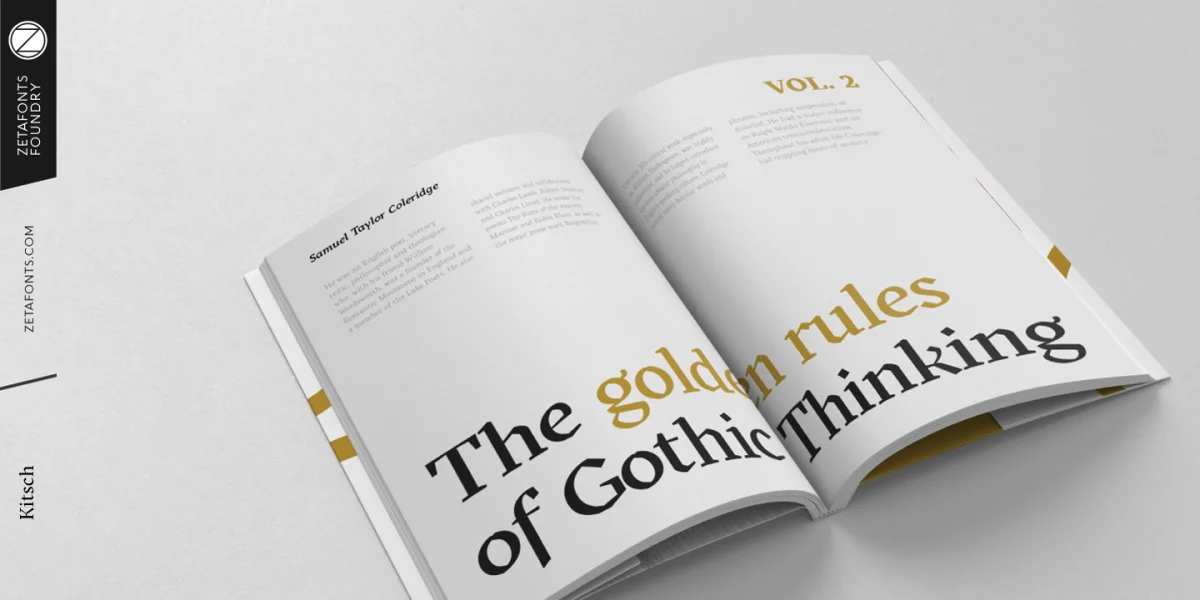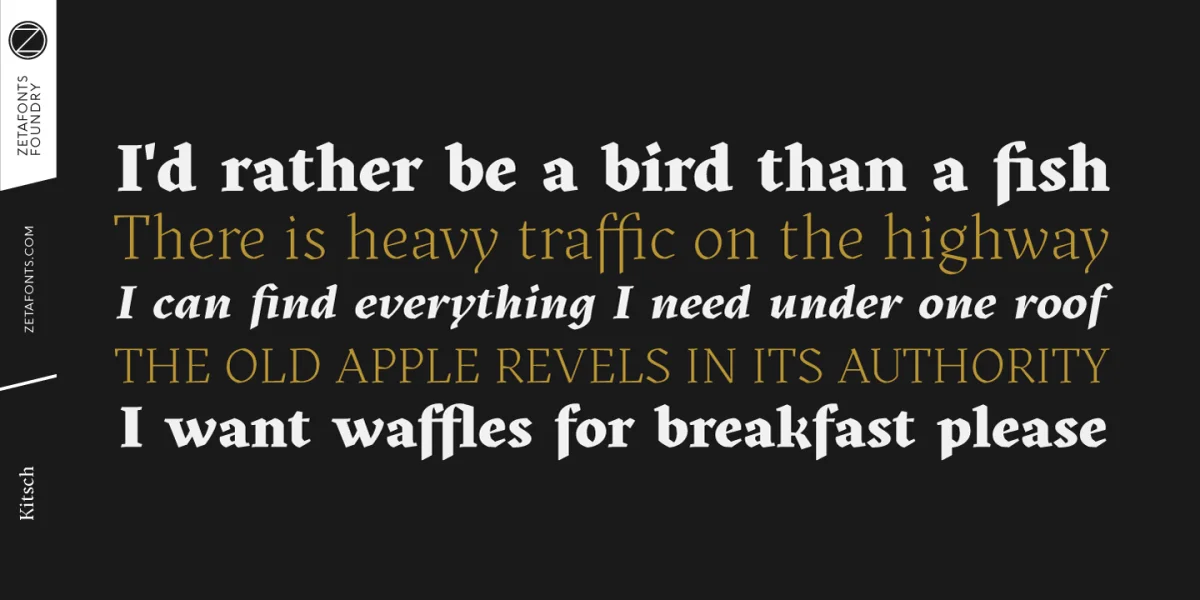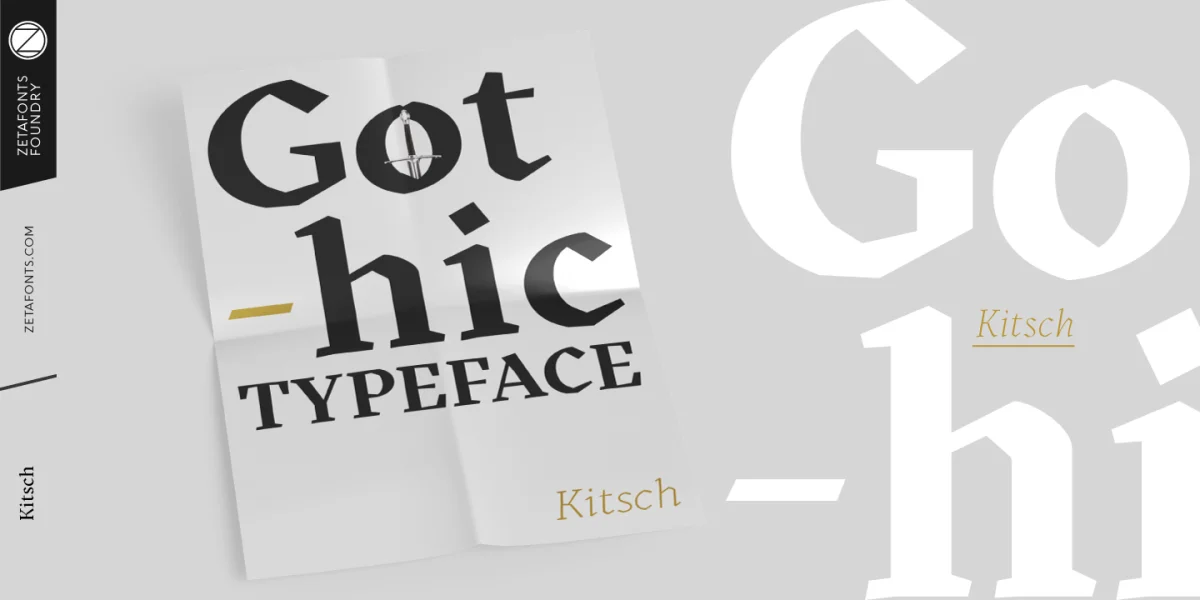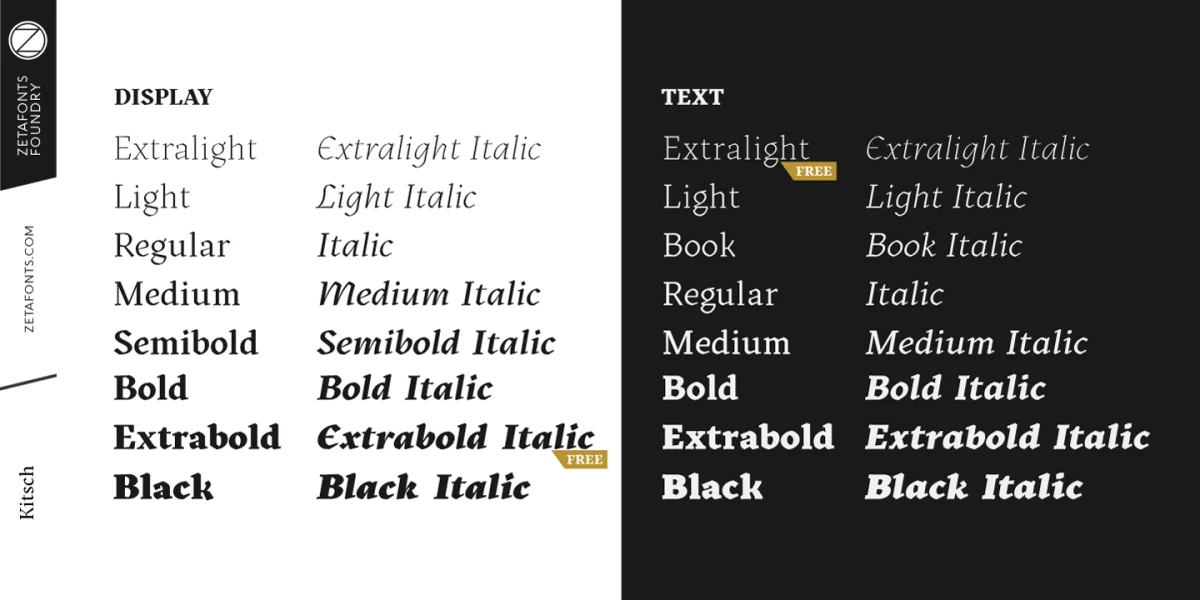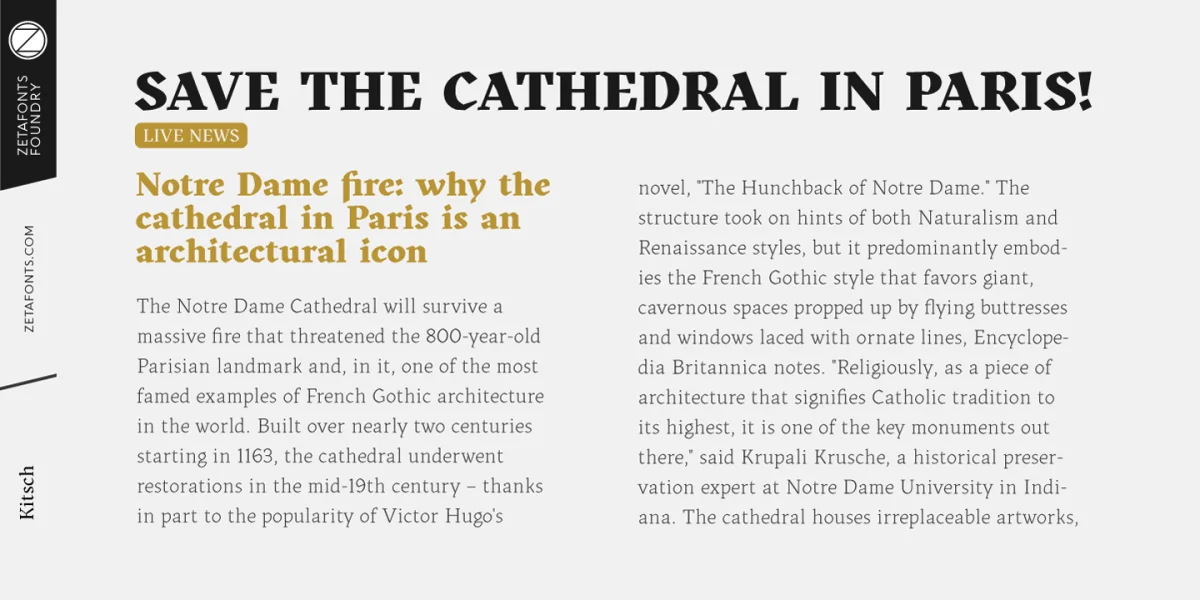
Designed by Francesco Canovaro with help from Andrea Tartarelli and Maria Chiara Fantini, Kitsch is a typeface happily living at the crossroads between classical latin and medieval gothic letterforms. But, rather than referencing historical models like the italian Rotunda or the french Bastarda scripts, Kitsch tries to renew both its inspirations, finding a contemporary vibe in the dynamic texture of the calligraphic broad-nib pen applied to the proportions of the classical roman skeleton. The resulting high contrast and spiky details make Kitsch excel in display uses, while a fine-tuned text version manages to keep at small sizes the dynamic expressivity of the design without sacrificing legibility. Both variants are designed in a wide range of weights (from the almost monolinear thin to the dense black), and are fully equipped with a extended character sets covering over two hundred languages that use latin, cyrillic and greek alphabets.
Special care has been put in designing Kitsch italic letterforms, with the broad-nib movements referencing classical italian letterforms to add even more shades to your typographic palette. The resulting alternate letter shapes have also been included in the roman weights as Stylistic Alternates - part to the wide range of Open Type features (Standard and Discretionary Ligatures, Positional Numerals, Small Caps and Case Sensitive Forms) provided with all the 32 weights of Kitsch.
Born for editorial and branding use, Kitsch is fashionable but solid, self-confident enough to look classic while ironic enough to be contemporary.